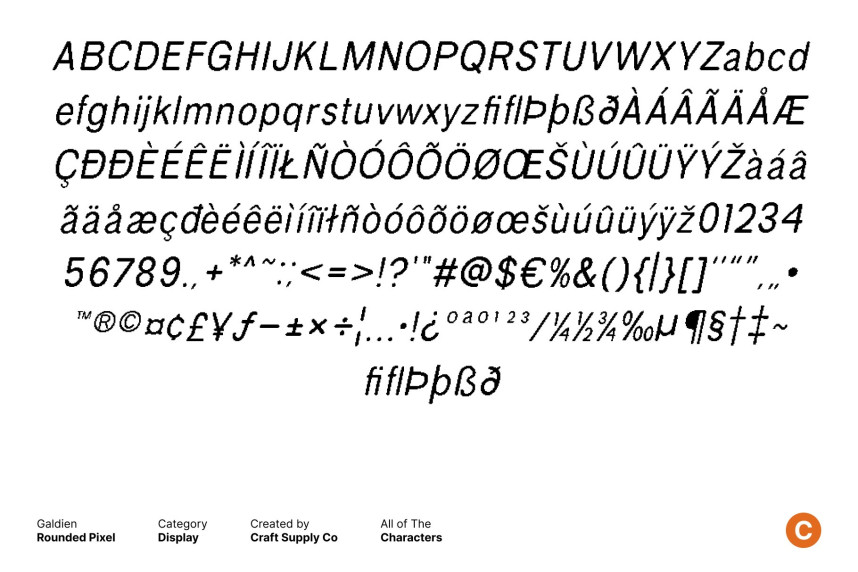
Galdien Rounded Pixel Font
Galdien Rounded Pixel Font – Retro Sans Serif with 8-Bit Digital Character Distinctive Pixel Aesthetic Inspired by Early Digital Era. This is a sans serif font crafted with a charming pixel style that instantly evokes the iconic 8-bit era. Its rounded forms soften the digital edges, creating a friendly yet distinctly retro feel. The font captures the essence of old computer graphics, vintage consoles, and early digital interfaces, making it a perfect tribute to classic technology.